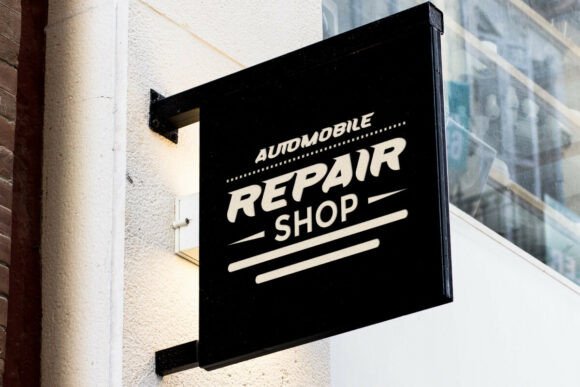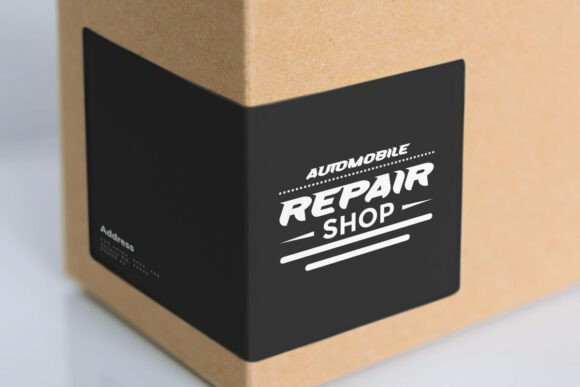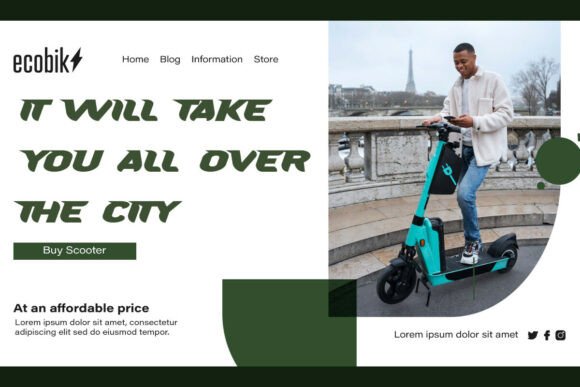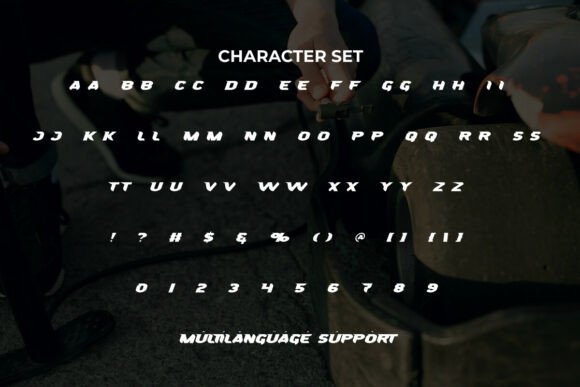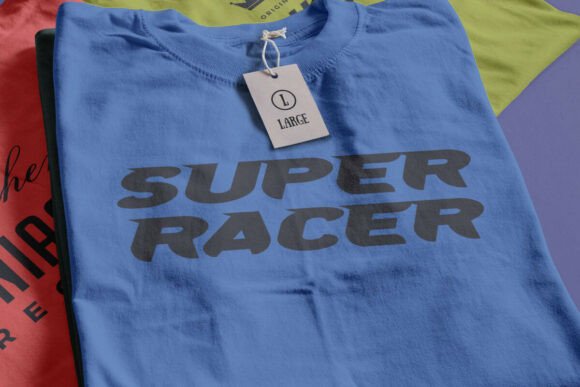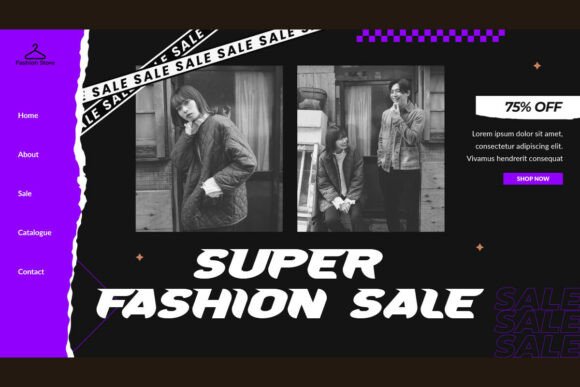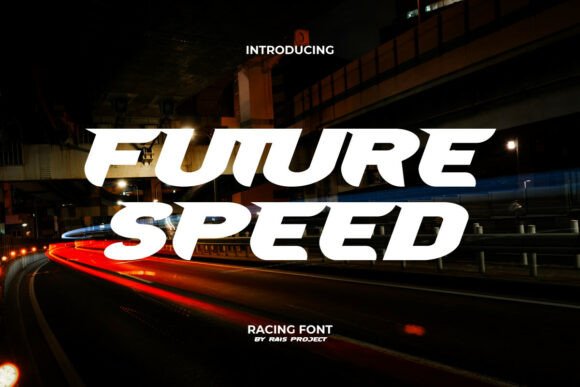
Introducing Future Speed Font: The Ultimate Racing Typeface for High-Octane Designs
Are you looking for a font that embodies the thrill of speed, competition, and cutting-edge technology? Look no further than Future Speed, an electrifying, hyper-aggressive racing font designed to inject a dose of adrenaline into your designs. This bold and dynamic display typeface is engineered for maximum velocity and high-octane performance, making it perfect for automotive branding, sports graphics, e-sports logos, and performance apparel.
Unleash the Power of Future Speed
Future Speed is a powerful, all-caps typeface that features a dramatic forward slant, sharp, aerodynamic curves, and thick, assertive strokes. These design elements perfectly capture the energy of speed and competition, giving your designs an instant boost of energy and excitement. Whether you’re creating a logo for a racing team, a title for a sports video, or a label for a performance apparel brand, Future Speed is the perfect choice.
Key Features of Future Speed Font
- All-Caps Design: Future Speed features a full set of ALL CAPS for uppercase and lowercase letters, numerals, and a large range of punctuation, making it perfect for headlines, titles, and short texts.
- Dramatic Forward Slant: The font’s dynamic forward slant gives it a sense of movement and energy, perfect for capturing the thrill of speed and competition.
- Sharp, Aerodynamic Curves: The font’s curves are designed to evoke the sleek, aerodynamic lines of high-performance vehicles, adding a touch of sophistication and technology to your designs.
- Thick, Assertive Strokes: The font’s thick strokes give it a bold, assertive look that’s perfect for making a statement and grabbing attention.
Industries That Can Benefit from Future Speed Font
Future Speed is a versatile font that can be used in a variety of industries, including:
- Automotive: Perfect for car manufacturers, racing teams, and automotive enthusiasts who want to add a touch of speed and performance to their branding.
- Sports and E-Sports: Ideal for sports teams, e-sports teams, and sports enthusiasts who want to add a bold, dynamic touch to their logos, jerseys, and marketing materials.
- Performance Apparel: Great for performance apparel brands that want to add a touch of energy and competition to their labels and marketing materials.
- Event and Festival: Perfect for events and festivals that want to add a bold, dynamic touch to their branding and marketing materials.
- Barber Shop and Cafes: Even businesses like barber shops and cafes can benefit from Future Speed’s bold, attention-grabbing design.
Why Choose Future Speed Font?
So why choose Future Speed font for your next design project? Here are just a few reasons:
- Unique and Memorable: Future Speed is a unique and memorable font that will help your designs stand out from the crowd.
- High-Quality Design: The font is designed with high-quality, precise lines and curves that will look great in any design.
- Easy to Read: Despite its bold design, Future Speed is easy to read, even at small sizes.
- Versatile: The font can be used in a variety of industries and design applications, from logos and branding to headlines and titles.
If you’re looking for a font that embodies the thrill of speed, competition, and cutting-edge technology, look no further than Future Speed. This electrifying, hyper-aggressive racing font is perfect for designers and crafters who want to add a bold, dynamic touch to their designs. With its dramatic forward slant, sharp, aerodynamic curves, and thick, assertive strokes, Future Speed is the perfect choice for automotive branding, sports graphics, e-sports logos, and performance apparel. So why wait? Download Future Speed font today and start creating high-octane designs that will leave a lasting impression!